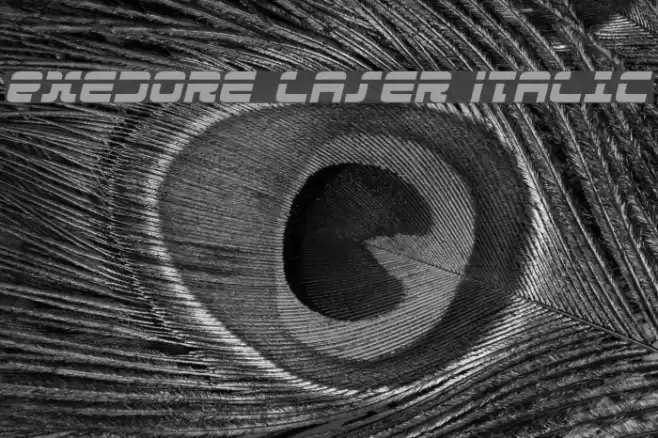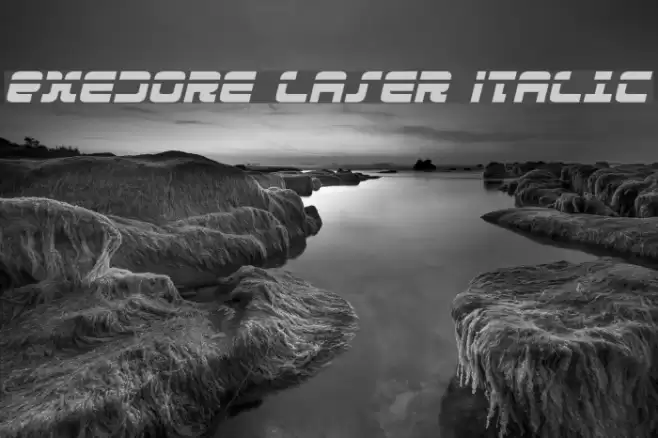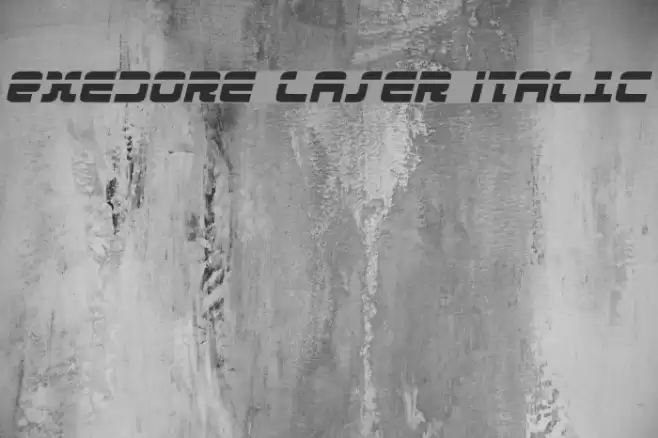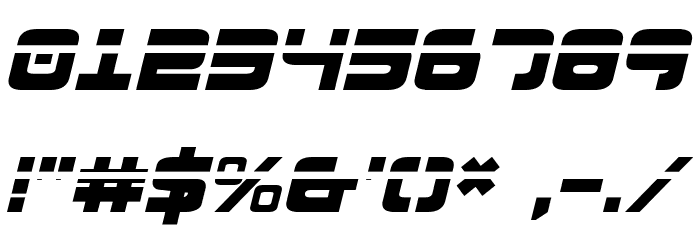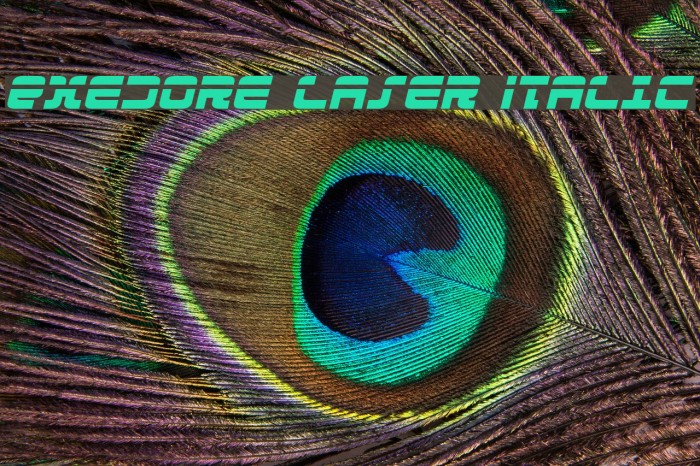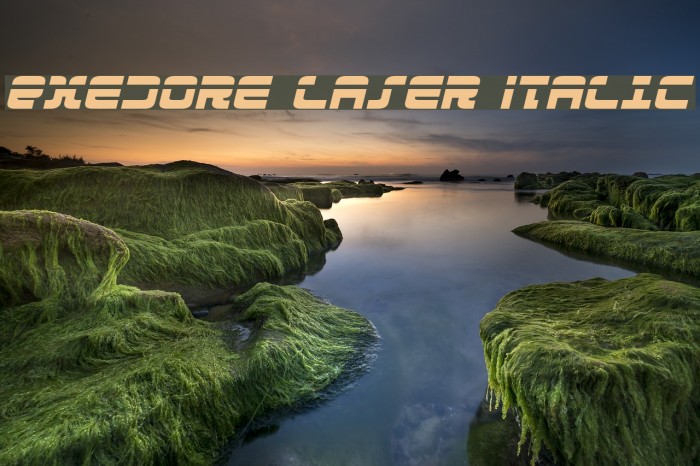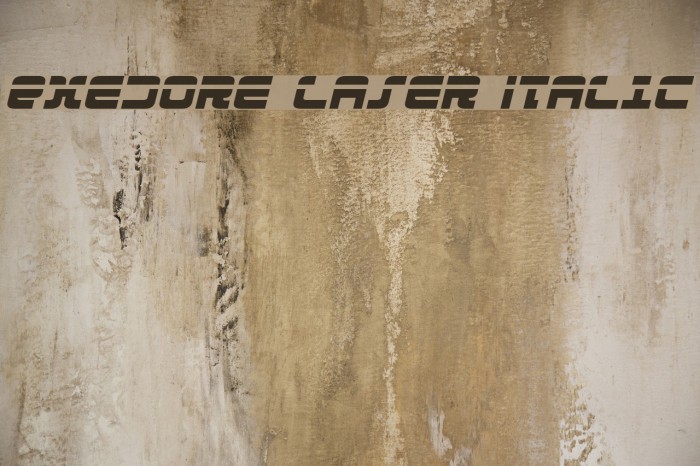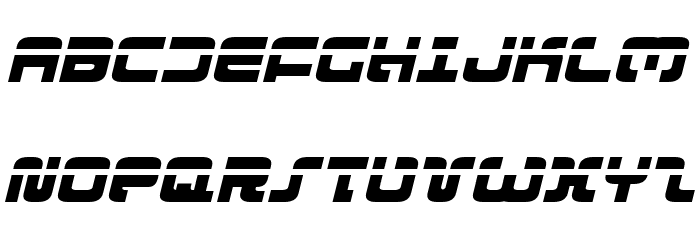
Exedore Laser Italic Font
Exedore Laser Italic Description
This font features a futuristic and dynamic design, characterized by its bold, italicized letters with sharp angles and a sleek, modern appearance. The characters are constructed with a stencil-like effect, where parts of the strokes are intentionally disconnected, giving it a high-tech, mechanical feel. The uppercase and lowercase letters maintain a consistent style, with the lowercase being slightly smaller but equally bold. The numbers and special characters follow the same design principles, ensuring uniformity across the font. The overall aesthetic is reminiscent of digital displays or sci-fi themes, making it suitable for projects that require a cutting-edge look.
A bold, italicized, futuristic font with a stencil-like design and high-tech appeal from Sci-fi fonts.
- Proposed Projects: Ideal for sci-fi movie posters, tech company logos, video game titles, and futuristic-themed event flyers.
- Use Case: Logos, Headlines, Display text